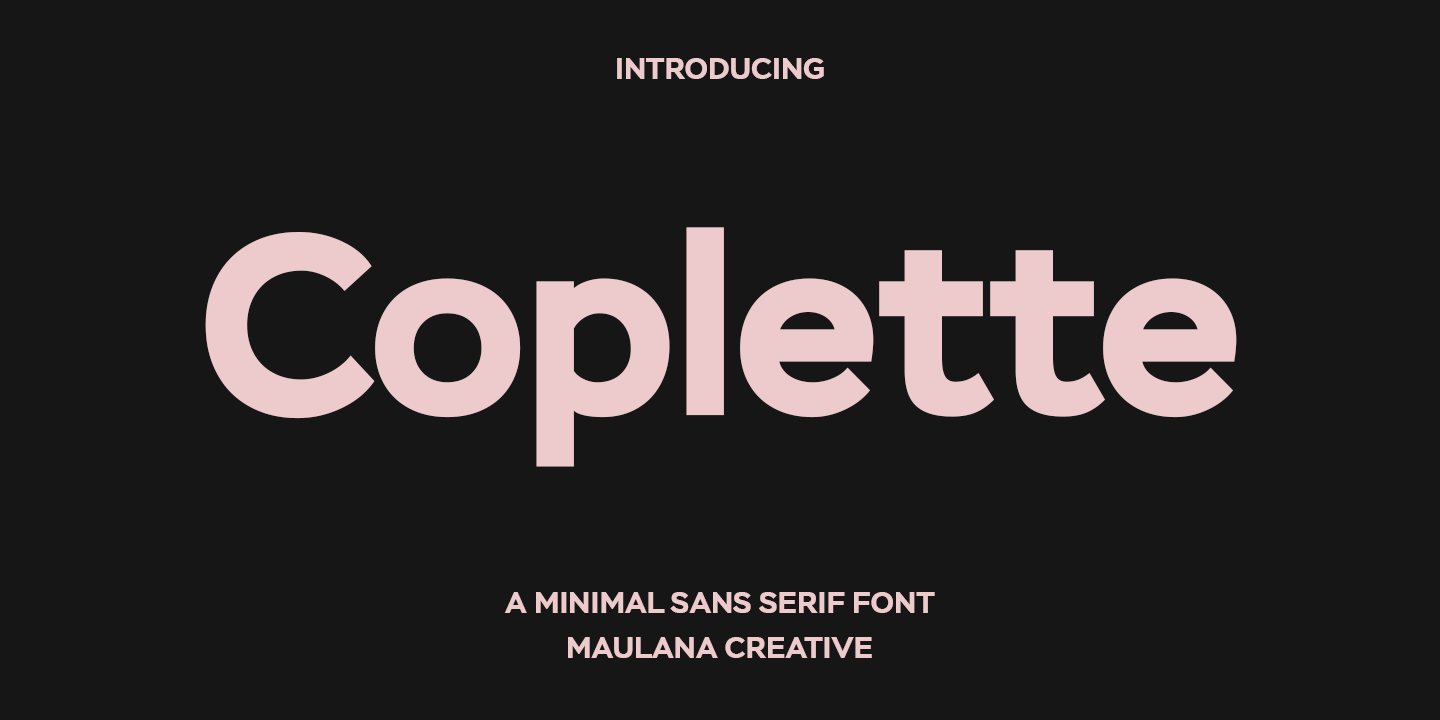
Coplette Font is perfect for a wide range of design applications including contemporary corporate branding, modern startup logos, sleek product packaging, professional business presentations, clean web interfaces, sophisticated marketing materials, minimalist architectural signage, refined editorial layouts, elegant stationery designs, and polished communication systems.
What makes Coplette Font exciting is its perfect synthesis of contemporary elegance and professional sophistication that captures the essence of modern business excellence and refined communication. This distinguished typeface brings a sense of streamlined efficiency and contemporary class to any project with its meticulously crafted letterforms that showcase balanced proportions and timeless appeal. The font's refined character shapes and harmonious proportions create an atmosphere of professional competence and modern sophistication that resonates with audiences seeking quality, reliability, and contemporary design excellence, making it an ideal choice for brands emphasizing professionalism, innovation, and refined aesthetics.
The Coplette Font family includes multiple weights and styles designed to accommodate various professional and contemporary design requirements. The collection typically features regular, bold, light, and italic variations, each maintaining the font's signature sophisticated aesthetic while providing comprehensive typographic flexibility. Additional professional symbols and contemporary ornaments enhance the family's creative potential for business-focused design projects.
Professional designers appreciate Coplette Font's exceptional versatility and comprehensive character support. The font includes extensive punctuation marks, numerical figures, business symbols, and international language capabilities, making it perfect for global corporate brands and international professional projects. Its professionally optimized spacing and kerning ensure professional results in corporate communications, business branding, and commercial marketing applications.
The increasing recognition of Coplette Font in the business community reflects its ability to enhance corporate identity and create memorable visual communications that balance professional authority with contemporary accessibility. Whether used for corporate branding, professional service materials, or contemporary creative projects, this font delivers outstanding results that celebrate the elegance of modern business communication and professional design excellence.